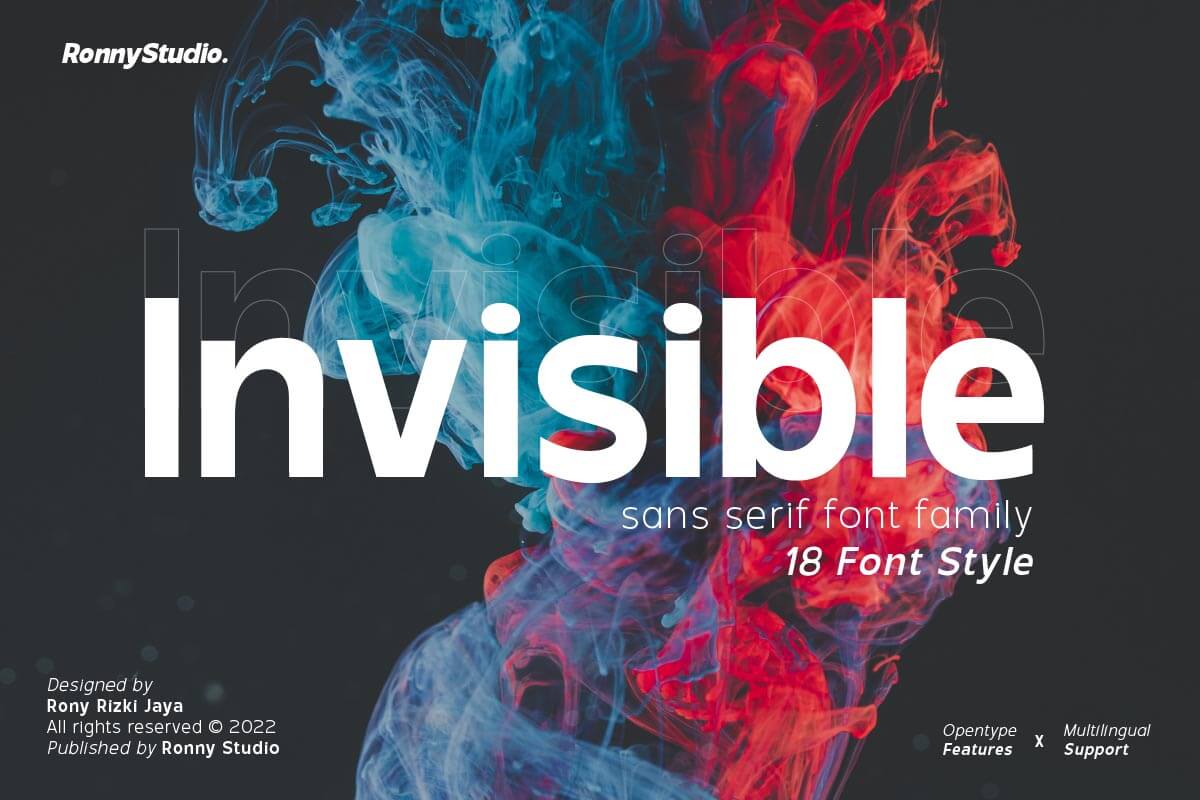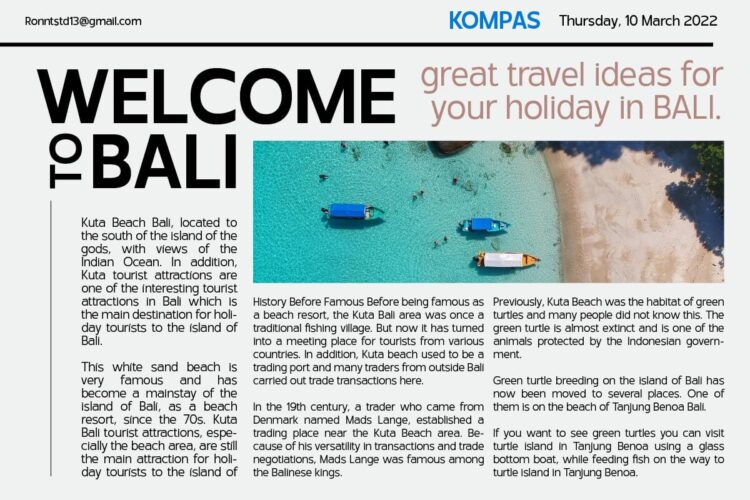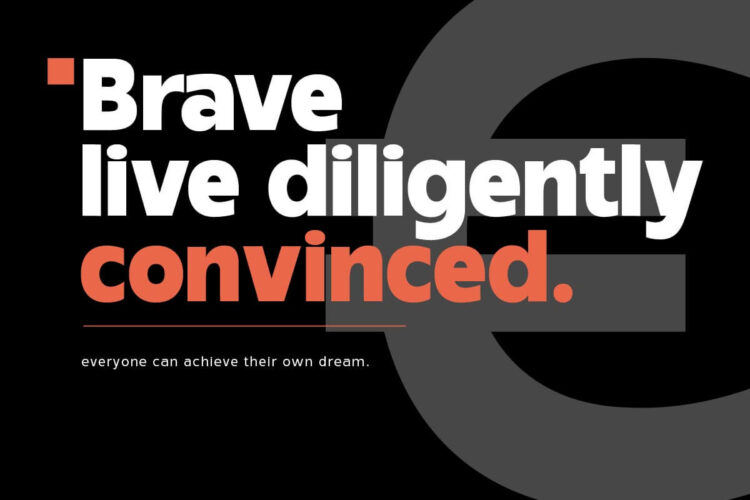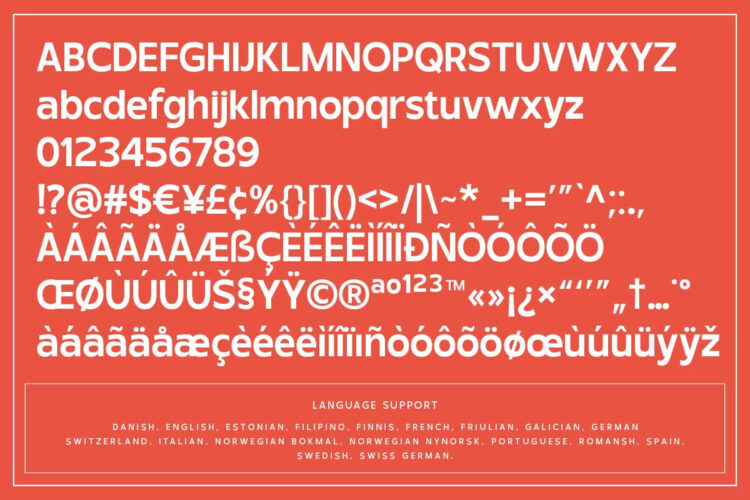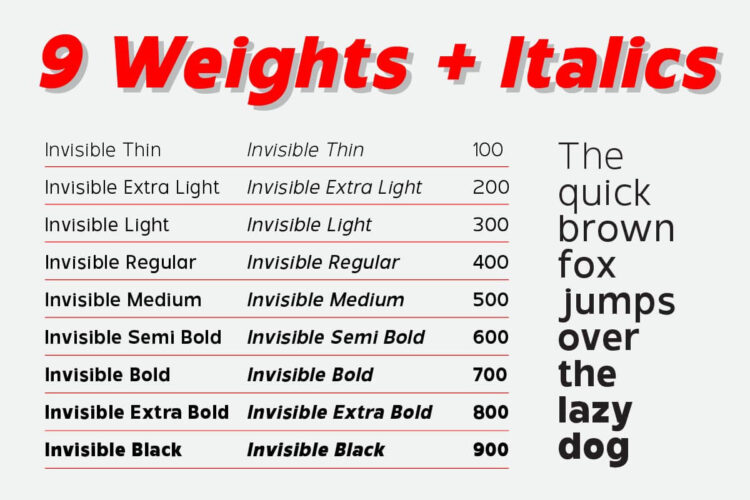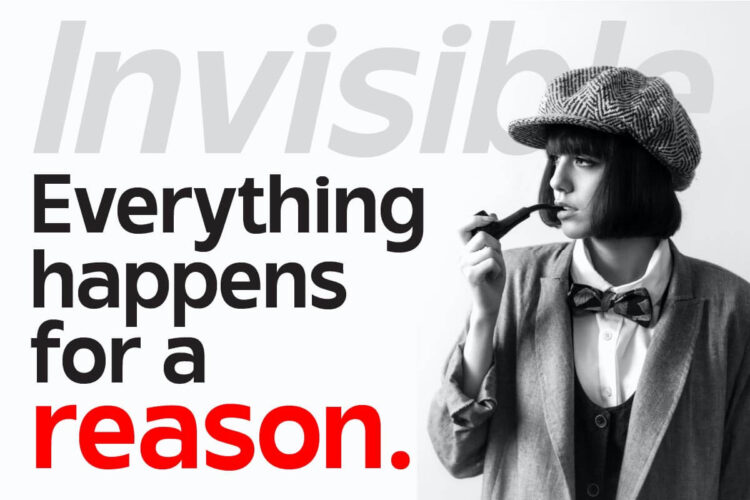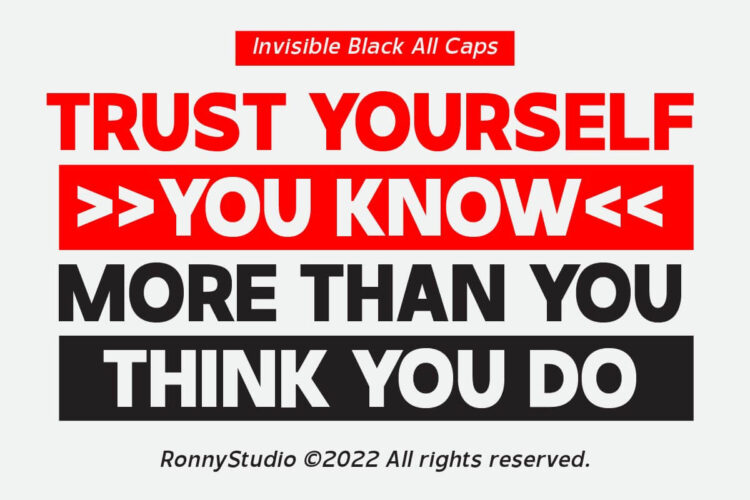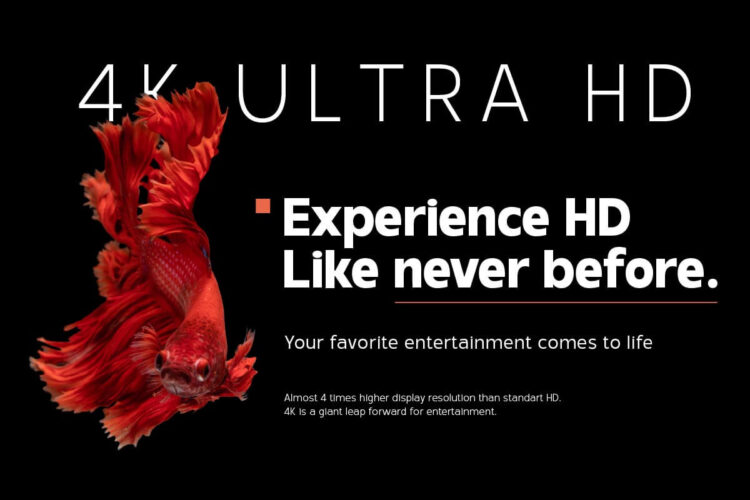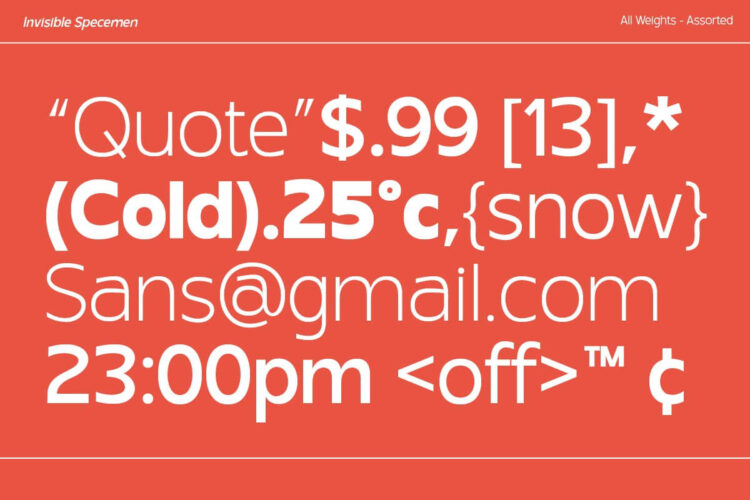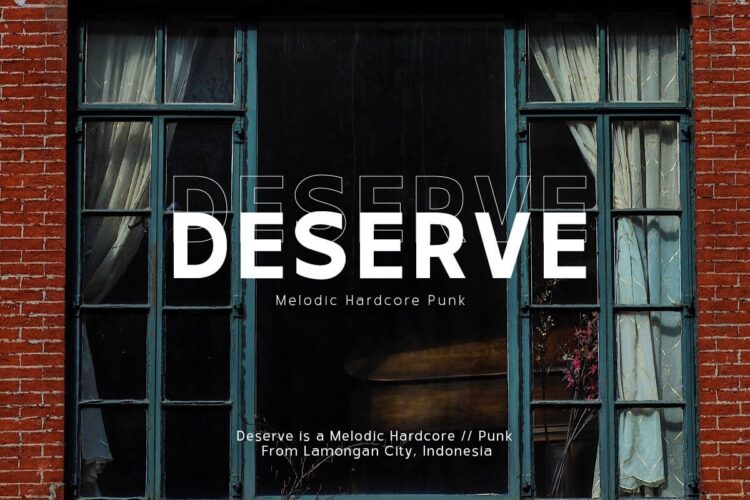
sans serif font family
Invisible – A Modern Sans Serif with 18 Stunning Styles ✨
Invisible is a refined and versatile sans serif font family designed for modern brands, UI/UX, editorial layouts, and professional designs. With 9 weights + italics, this font is perfect for everything from minimalist branding to high-end magazine layouts.
🔠 Key Features:
✅ 18 Font Styles – Includes 9 weights (Thin to Black) + Italics for maximum flexibility.
✅ Modern & Clean Look – Ideal for branding, corporate identity, web design, and editorial use.
✅ Opentype Features – Supports ligatures, alternates, and advanced typography features.
✅ Multilingual Support – Covers multiple languages for global design projects.
💼 Perfect for: Branding, Editorials, UI/UX Design, Websites, Packaging, and More!
🚀 Upgrade Your Typography with Invisible – Where Minimalism Meets Versatility!
Invisible – Sans Serif Font Family